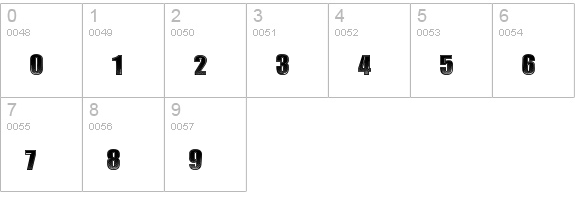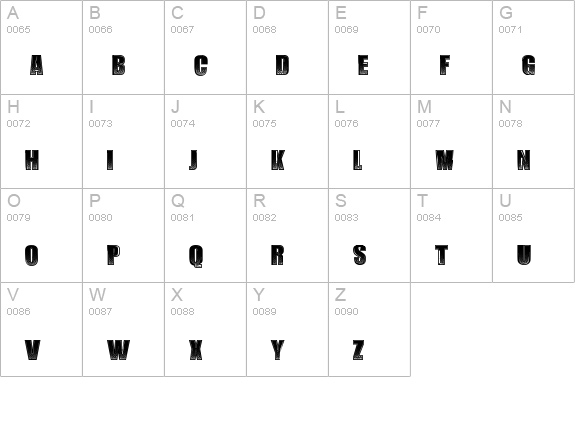
LateNoise is a unique and captivating font that effortlessly blends modernity with a touch of edginess. Its distinctive letterforms are characterized by bold lines and sharp angles, giving it a strong and confident presence. With its unconventional design, LateNoise is perfect for making a statement and standing out from the crowd. This font exudes a sense of energy and dynamism that is sure to capture attention in any creative project. Whether used for a logo, website, poster, or any other design application, LateNoise adds a contemporary and avant-garde flair that commands attention. One of the best features of LateNoise is that it is available for free. Yes, you read that right – this incredible font can be downloaded without any cost at FontsMarket.com. This means that designers, artists, and enthusiasts alike can enjoy the beauty and versatility of LateNoise without breaking the bank. The free availability of LateNoise makes it even more accessible to anyone seeking to elevate their designs to new heights. It eliminates the barriers that often come with obtaining high-quality fonts and gives everyone the opportunity to bring their creative visions to life. FontsMarket.com ensures a seamless and hassle-free download process, allowing users to quickly and easily incorporate LateNoise into their projects. So, if you're looking for a font that breaks the mold and adds a modern touch to your designs, LateNoise is the perfect choice. With its bold and captivating letterforms, this font is sure to make a lasting impression. Don't miss out on the opportunity to download it for free at FontsMarket.com and unlock your creative potential with LateNoise.